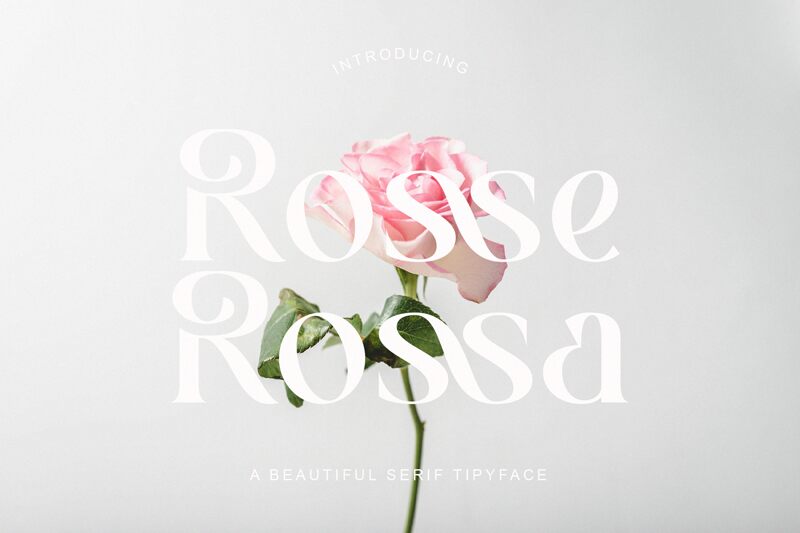
Rosse Rossa font family by Muflieart is a free serif font available exclusively for personal use. Striking and sophisticated, the typeface is ideal for your modern branding needs and will make sure your designs leave an impact. It comes with upper, lowercase, numbers, and punctuation, which you can mix and match to create visually overpowering artistic designs. Rosse Rossa is a perfect choice for contemporary applications where attention to detail is crucial yet necessary.
Apply this stylishly refined serif typeface in logos for your fashion brands, magazines, and e-commerce websites for a graceful look. In printed designs, it can be used to create classic yet chic business cards and envelopes that will get you noticed in all the right ways. Rosse Rossa will fit perfectly on packaging designs from storefronts to online websites because everyone appreciates style. The font works well for brochures, event posters, and invitations for formal occasions. Enjoy this tool in visual content by influencers, animated social media posts, blog images, and video thumbnails.